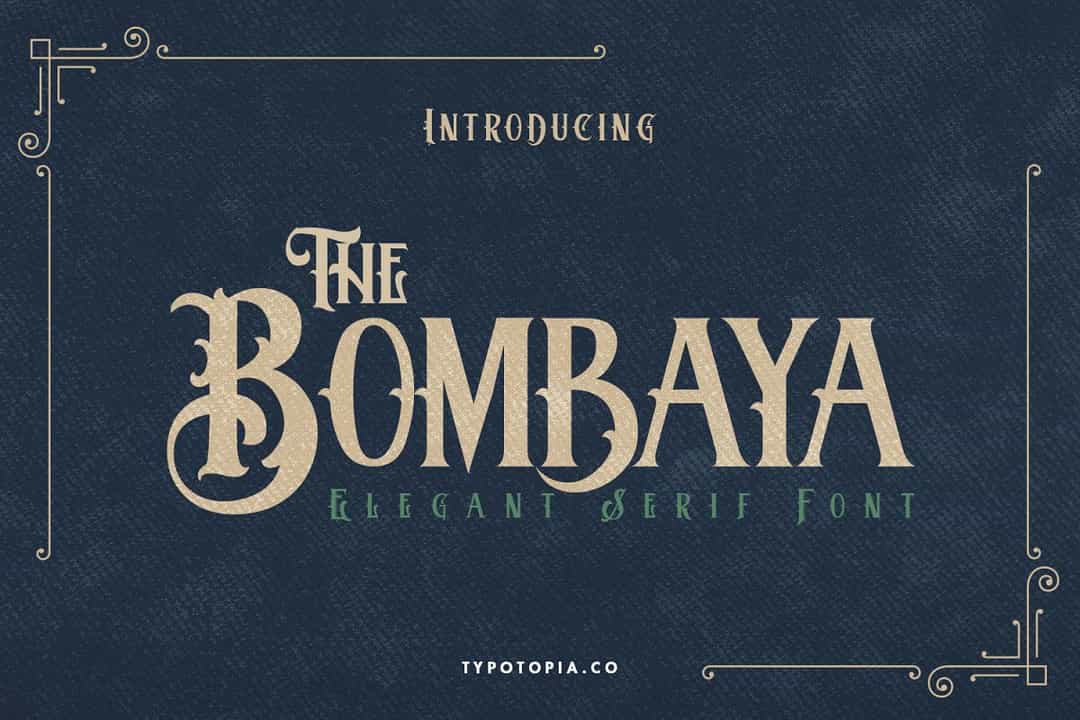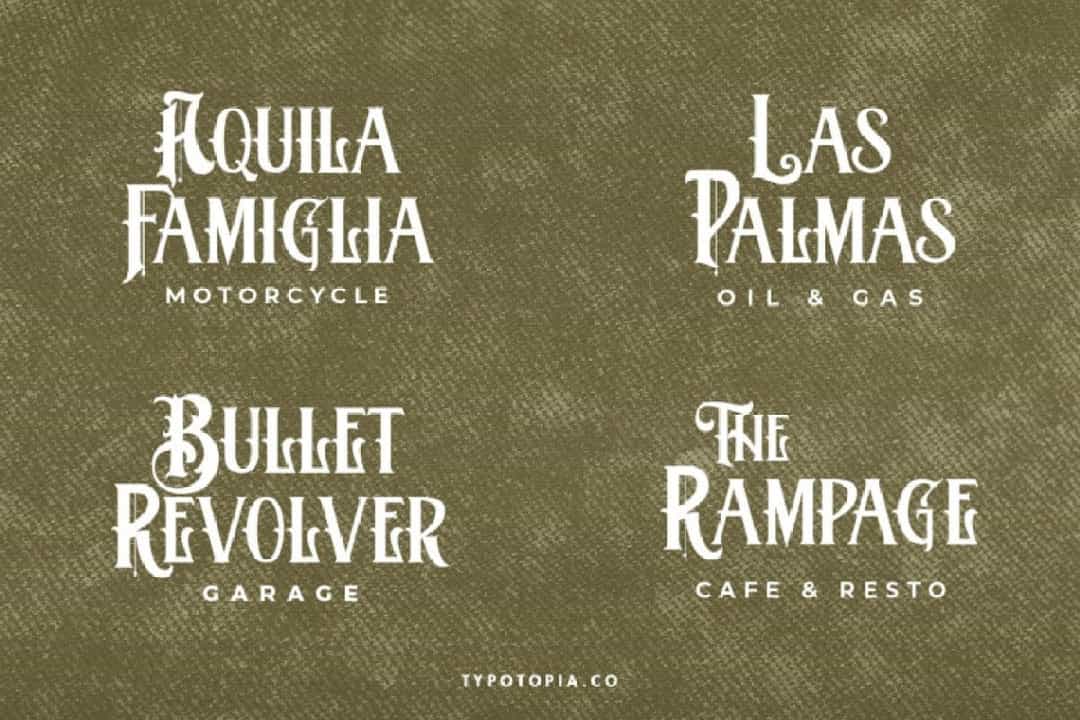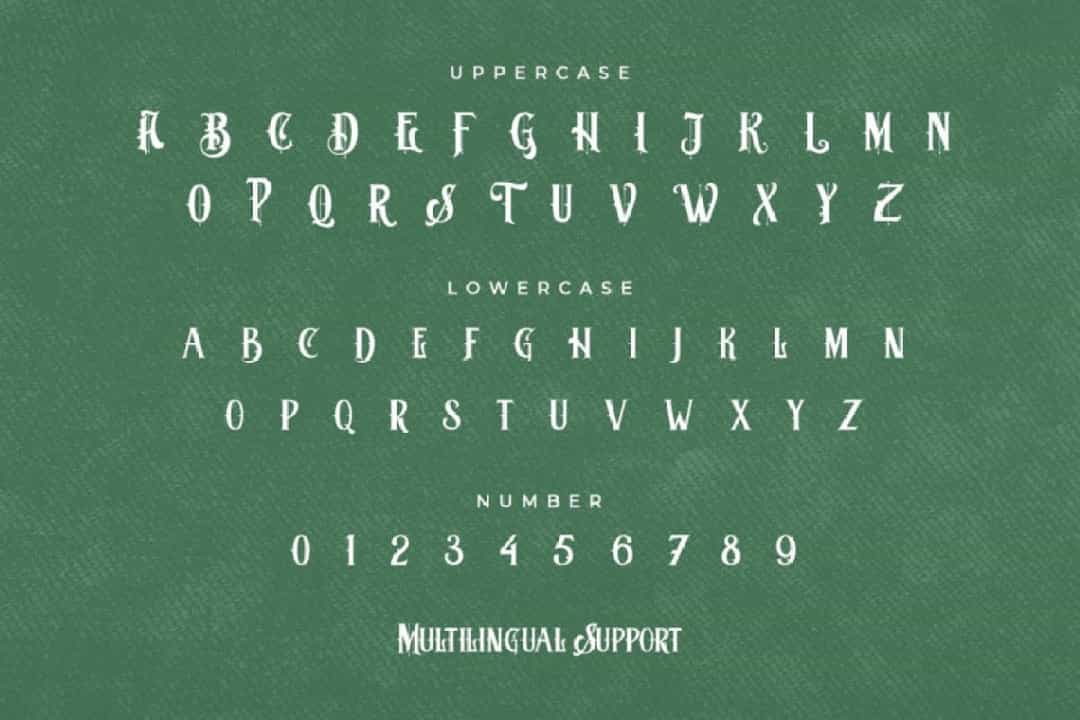
Bombaya is a beautiful display font that has natural serif style of lettering that was influenced by the lettering of the past eras and still retains the Classic and Medieval look. Bombaya font is great for many uses; for the headlines and logotypes, apparel invitations, branding packages and advertisements, apparel invites and invitations.